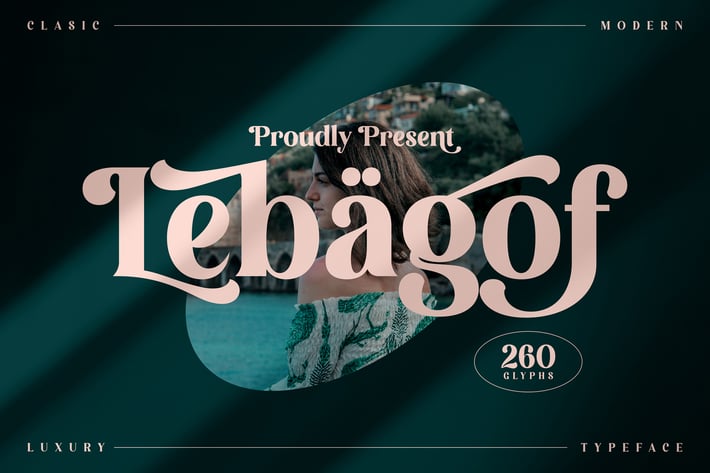
Lebagof Modern Serif Font
Lebagof is a modern luxury serif that blends classic editorial shapes with fresh, sculpted curves. High contrast strokes, elegant terminals, and generous letter-widths give it that “statement” look—perfect when you want copy to read like a logo. Use it large for headlines, packaging, and identity work where refinement and presence matter. Turn every headline into a brand moment.
+ Uppercase & lowercase A–Z
+ ~260 glyphs with stylistic alternates & ligatures
+ Numerals, punctuation, and symbols
+ Multilingual Latin support
+ Optical kerning & smooth curves for clean display typesetting
+ Editorial headlines & pull quotes
+ Luxury branding and wordmarks
+ Fashion & beauty packaging
+ Magazine covers & feature spreads
+ Posters, billboards, and campaign graphics
+ Social media promos & Pinterest pins
+ Wedding suites, menus, and event signage
+ Boutique & café signage
Give your brand that magazine-cover finish with Lebagof.